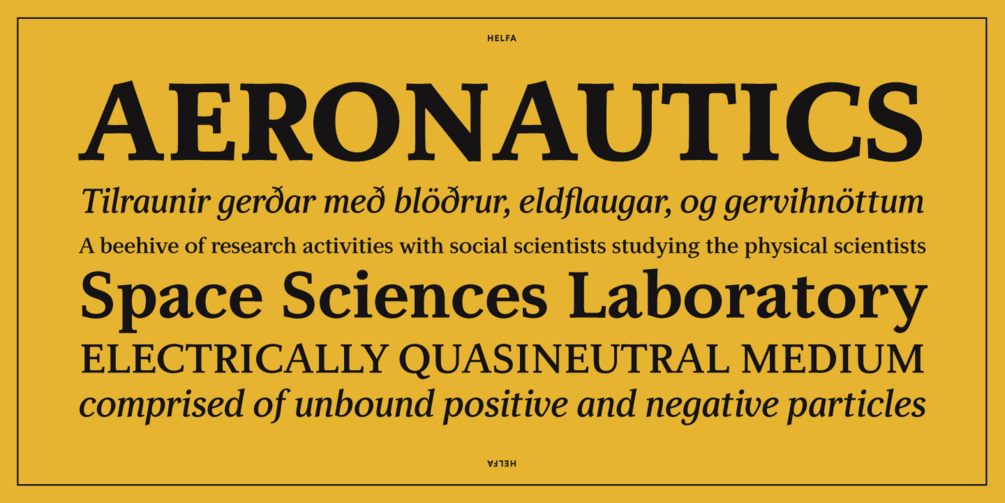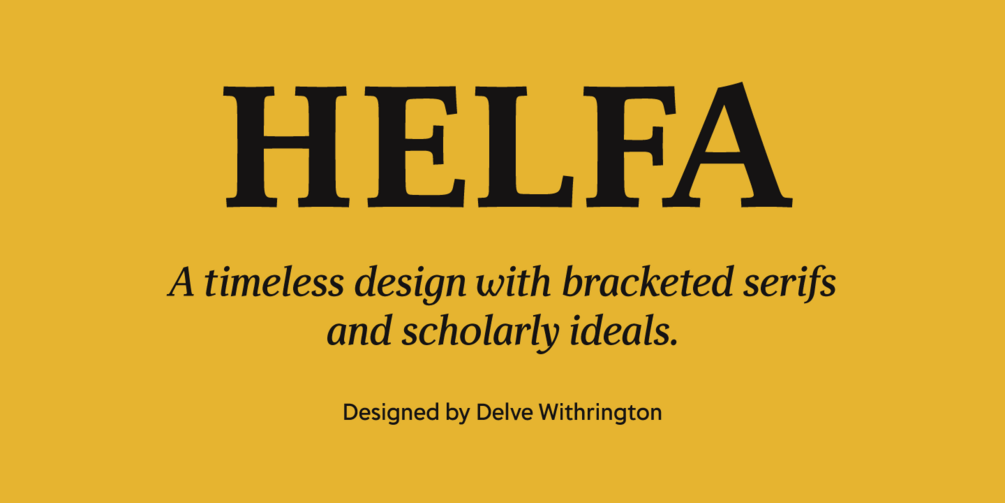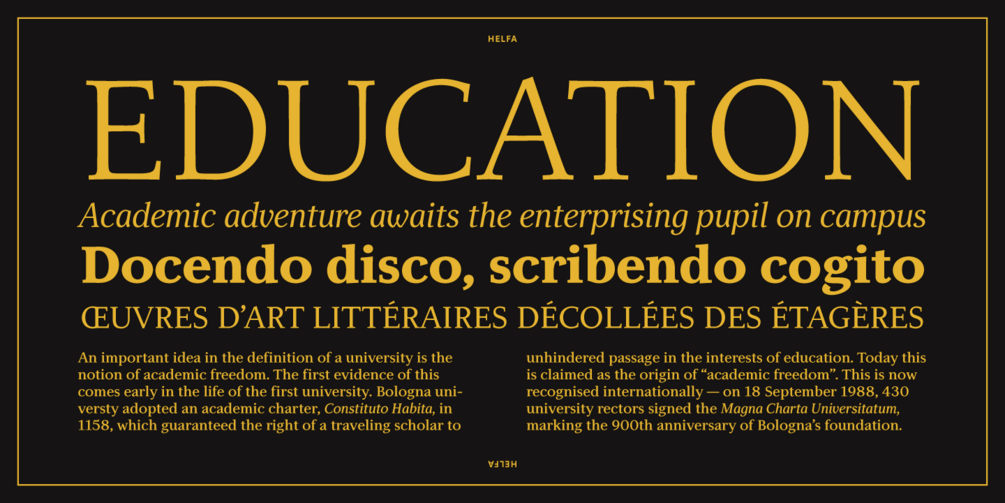
Designed by Delve Withrington, Helfa is tempered for a smooth, pleasant reading experience.
Readability is baked in with a generous x-height, fine pro­por­tions that have a medium height-to-width ratio, and reason­able contrast in stroke weight variation. The let­ter shapes are individually drawn to be dis­tinctive, not simply mir­rored or rotated. The sturdy, bracketed serifs hold up con­fident­ly be­low twelve points. Helfa can be re­lied upon for set­ting lengthy texts at smaller sizes but is still readily ap­plic­able to a number of other tasks.
Helfa’s natural versatility means it can be used for a wide variety of print materials such as books, maga­zines, brochures, and more. With a range of five useful weights and five corresponding true ital­ics all in OpenType format, Helfa is a solid choice for a reliable text type­face. Dis­cover just how much of a pleasure Helfa is to use, and how in­dispens­able it is for your projects.